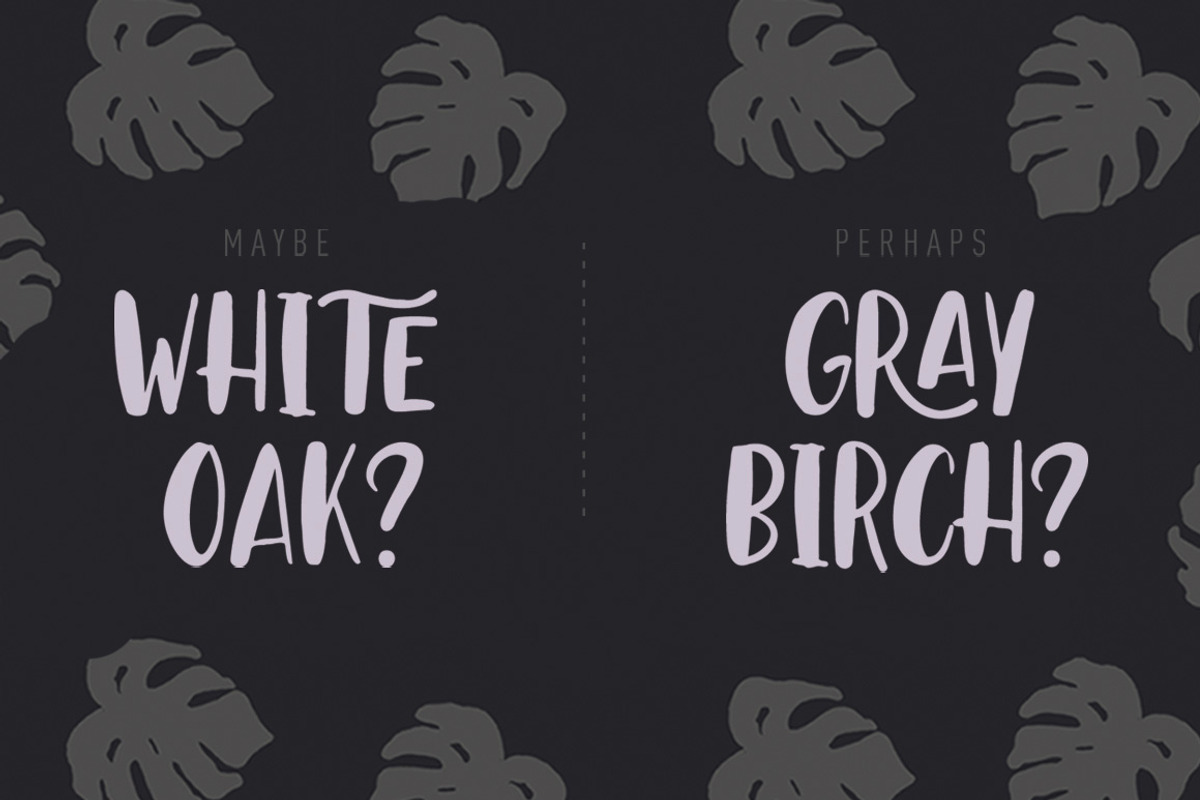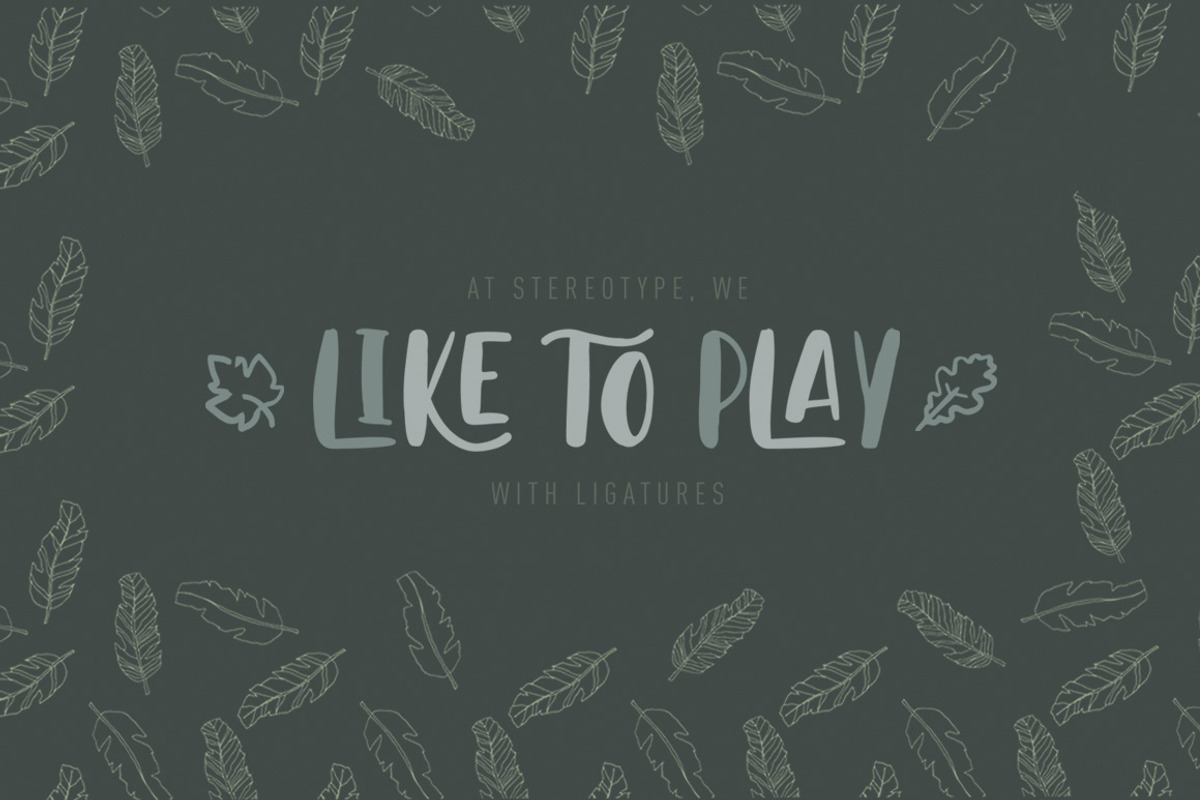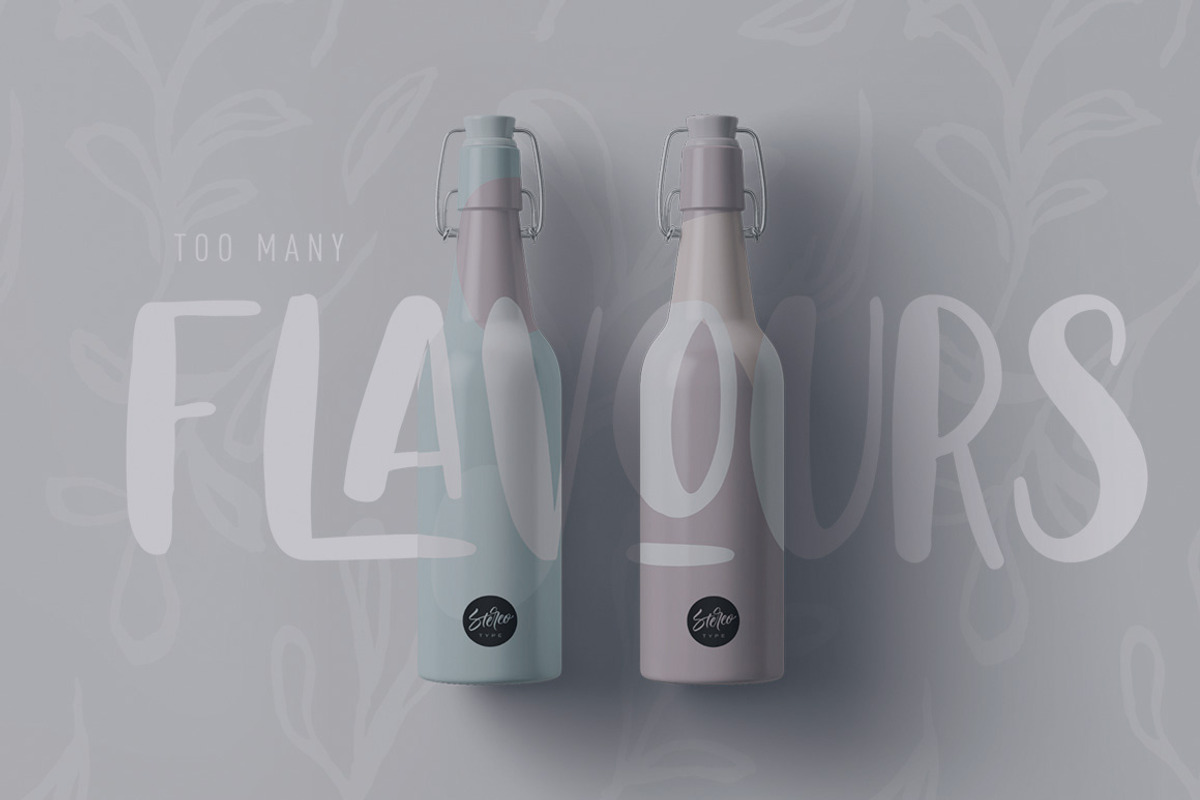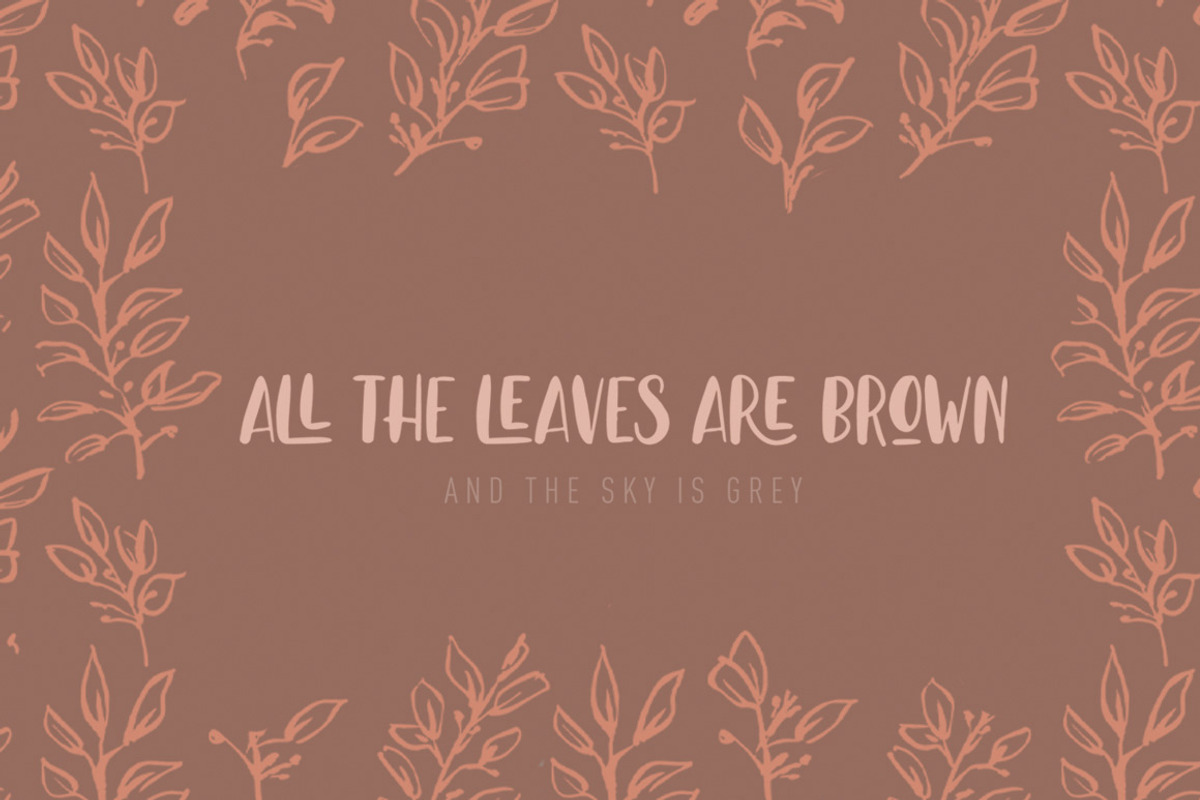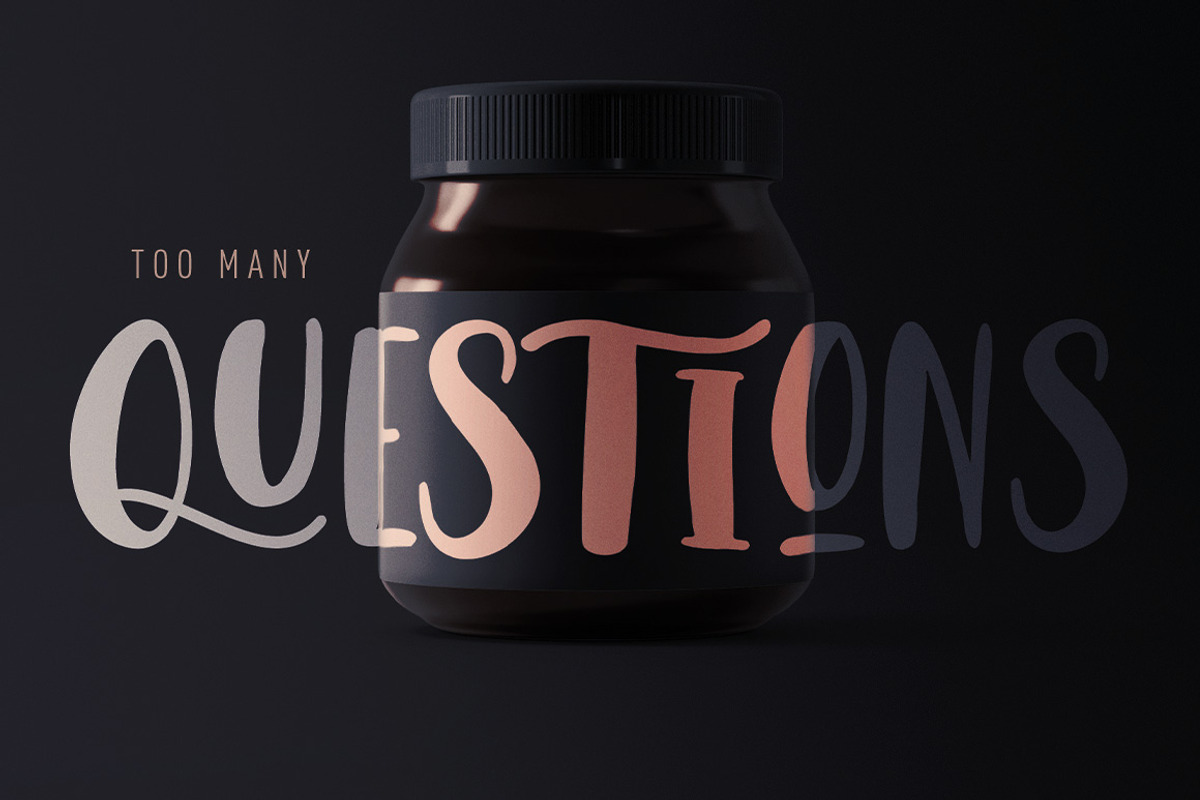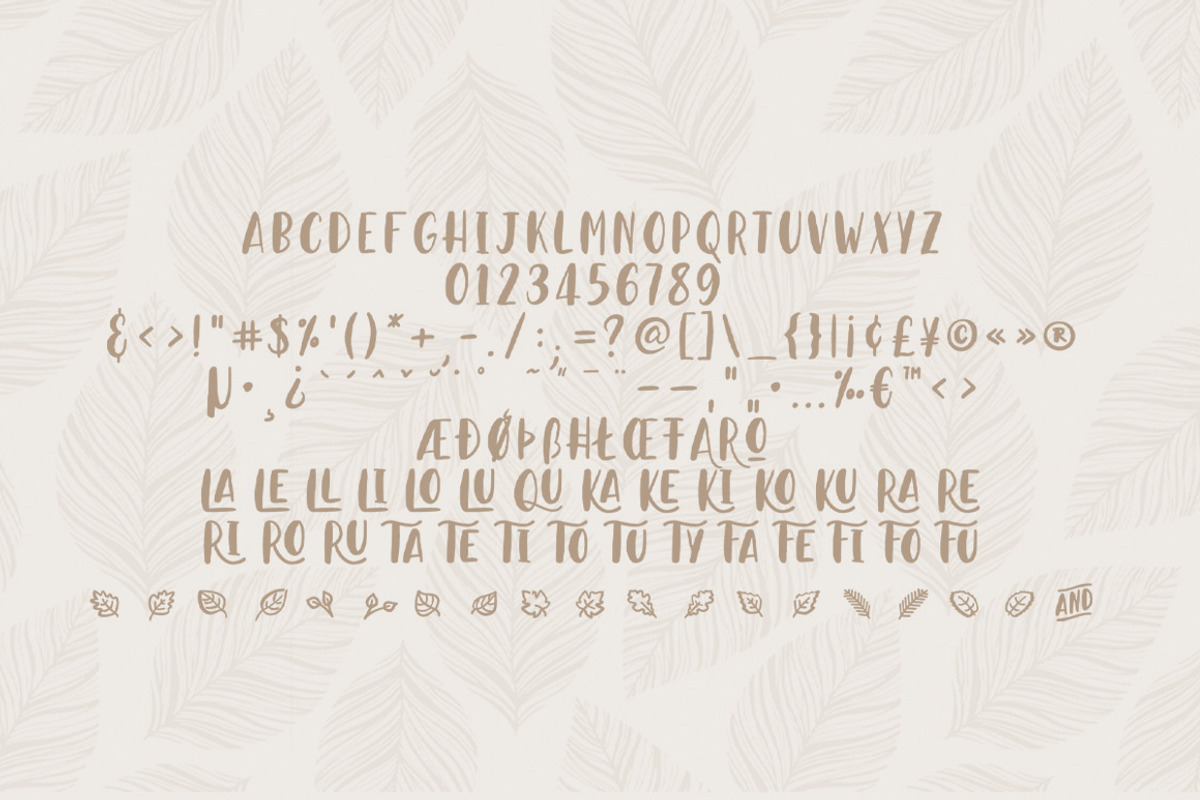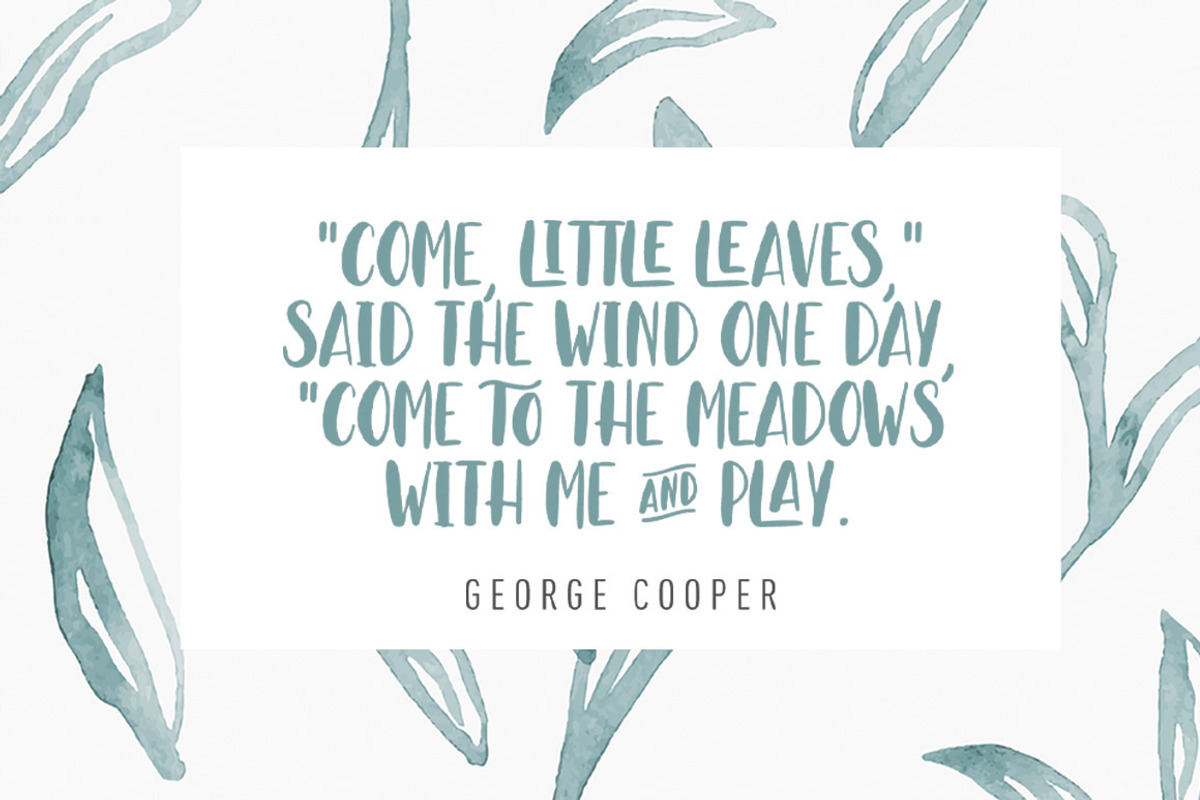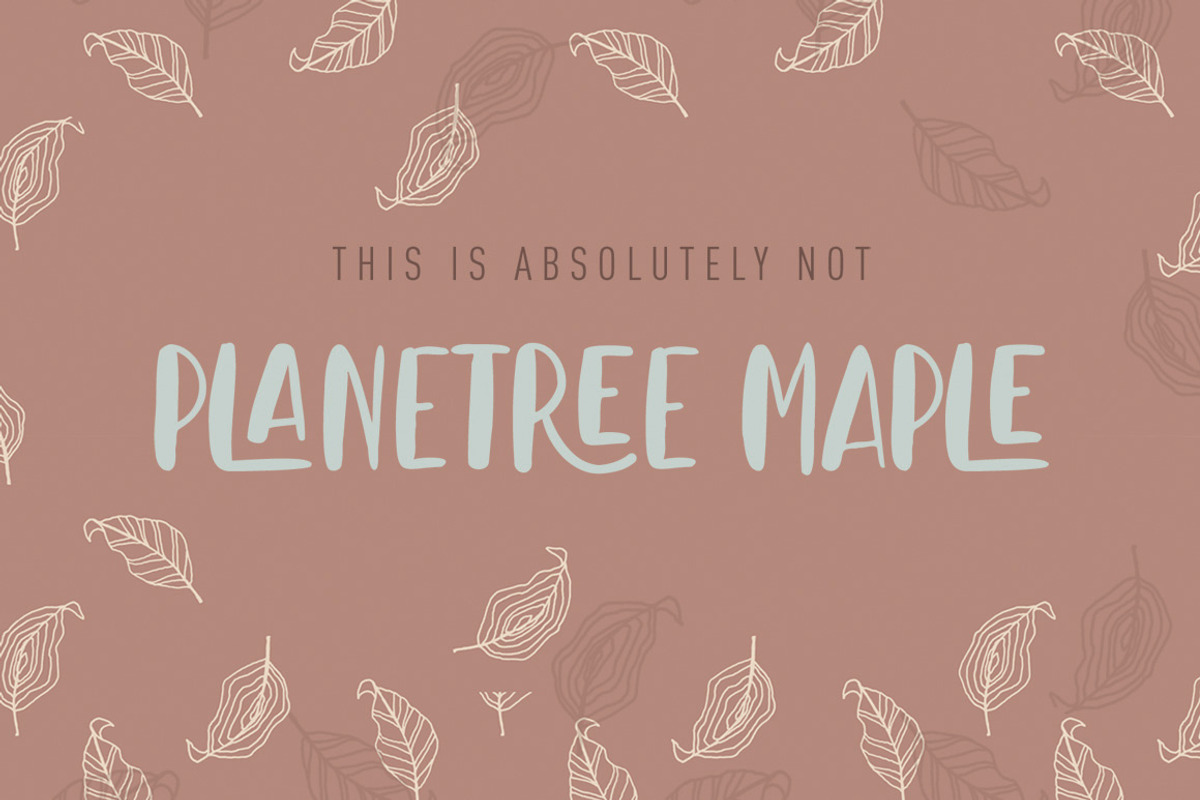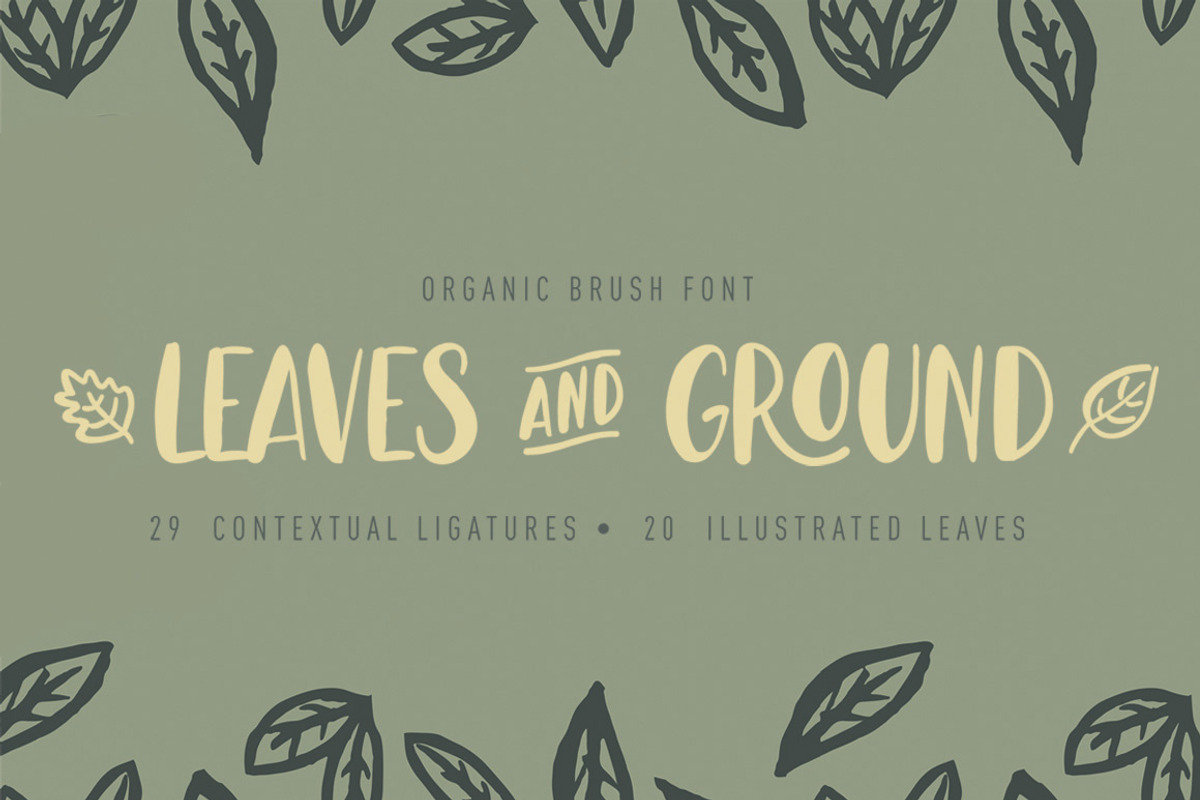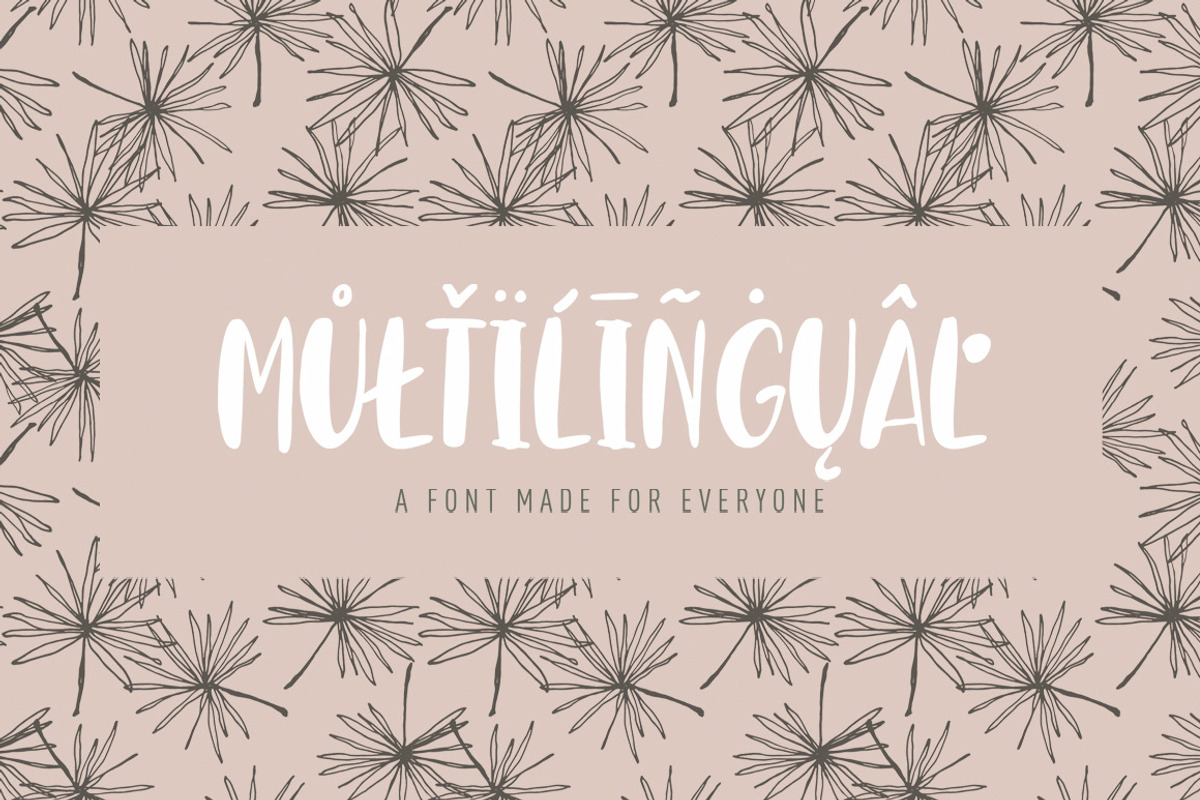
Leaves And Ground is a cool brush font with a soft and boucy style. It wil be your best font choice for branding, wedding invites, cards, or for modern packaging.
Leaves And Ground includes a wide set of gorgeous uppercase letters, numerals, a large range of punctuation and a ton of ligatures.